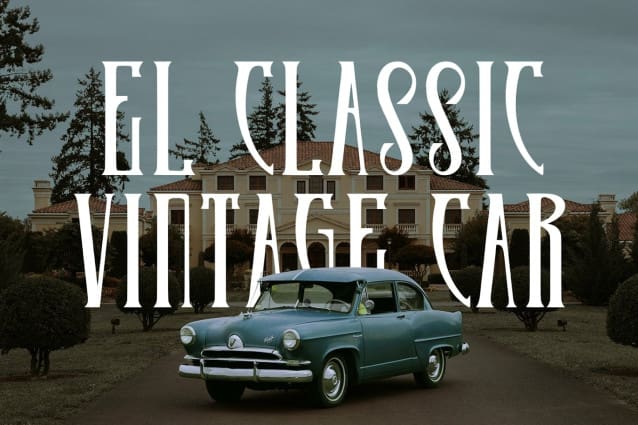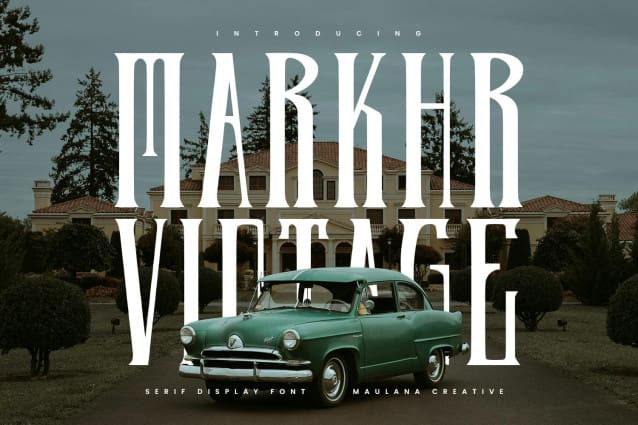
Markhr Vintage Font
Markhr Vintage Font, a heavy line, a fun character with a bit of ligatures. To provide you with additional creative work. Markhr Serif display font supports multilingual in over 100 languages. This font is suitable for logo design, social media, movie titles, book titles, short text, even a long letter, and is suitable for your secondary text font with script or Serif. Create stunning work with the Markhr Serif display font